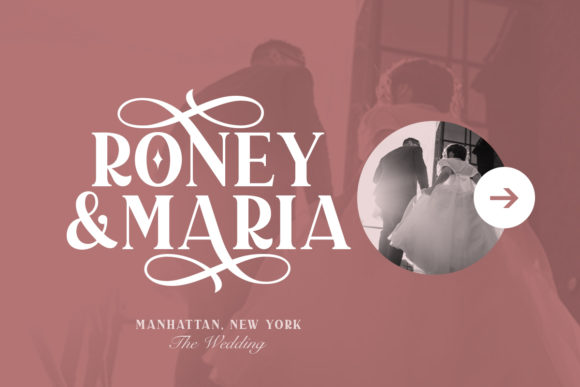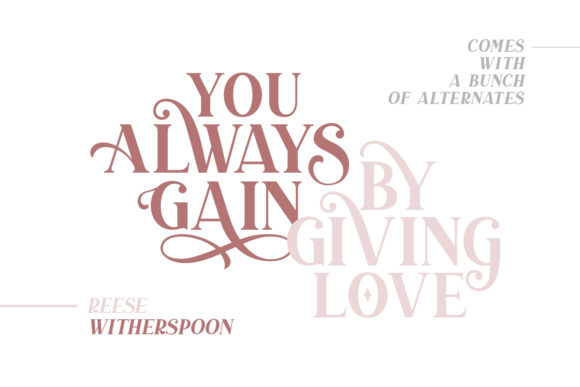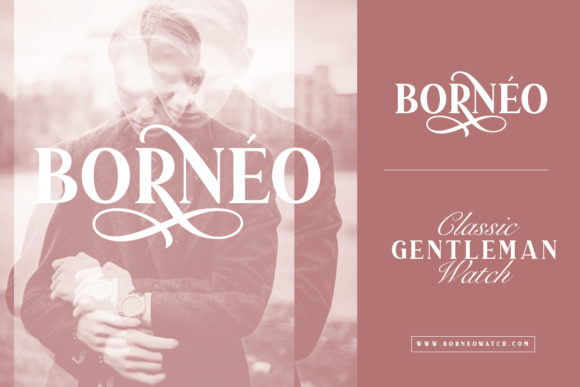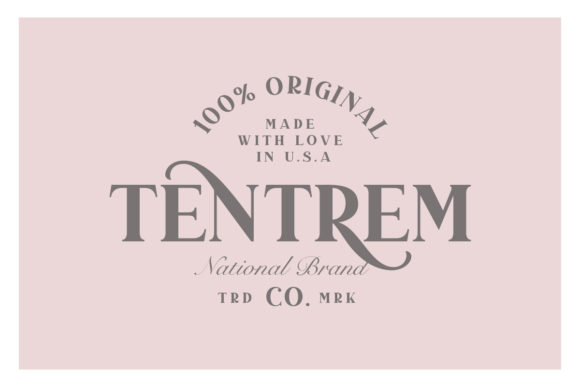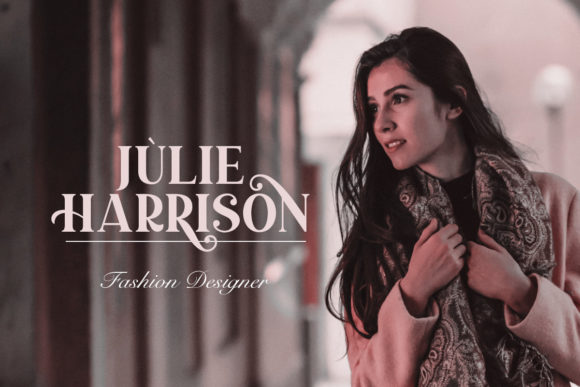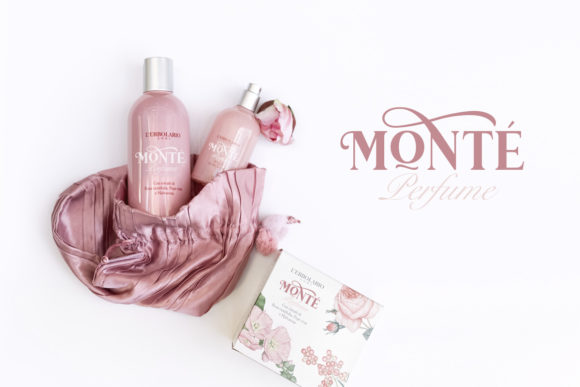
Introducing Duarose Font: Elevate Your Designs with Elegance and Versatility
Are you on the hunt for a font that exudes sophistication, elegance, and versatility? Look no further than Duarose Font! This stunning serif font is making waves in the design community, and for good reason. With its unique blend of classic charm and modern flair, Duarose is the perfect addition to any designer’s toolkit.
The Beauty of Duarose Font
Duarose Font is an elegant and distinct serif font that is sure to capture your heart. Its incredibly versatile style makes it an ideal choice for a wide range of design projects, from wedding invitations and stationary art to social media posts and more. Whether you’re a seasoned designer or a crafty DIY enthusiast, Duarose Font is sure to inspire your creativity and take your designs to the next level.
What Makes Duarose Font So Special?
So, what sets Duarose Font apart from other fonts on the market? Here are just a few of its standout features:
- Elegant Serif Design: Duarose Font boasts a beautiful serif design that adds a touch of sophistication to any project.
- Versatile Style: With its versatile style, Duarose Font can be used for a wide range of design projects, from formal wedding invitations to playful social media posts.
- Unique Character: Duarose Font has a unique character that sets it apart from other serif fonts on the market.
- Easy to Read: Despite its elegant design, Duarose Font is easy to read, making it perfect for body text and other applications where legibility is key.
Ways to Use Duarose Font
With its versatility and elegance, Duarose Font can be used in a wide range of design projects. Here are just a few ideas to get you started:
- Wedding Invitations: Create beautiful and elegant wedding invitations that set the tone for the big day.
- Stationary Art: Add a touch of sophistication to your stationary art with Duarose Font.
- Social Media Posts: Make your social media posts stand out with Duarose Font’s elegant and eye-catching design.
- Branding and Packaging: Use Duarose Font to create a cohesive brand identity that exudes elegance and sophistication.
- Signage and Displays: Create eye-catching signage and displays with Duarose Font that are sure to grab attention.
Tips for Using Duarose Font
To get the most out of Duarose Font, here are a few tips to keep in mind:
- Experiment with Font Sizes: Duarose Font looks great in a variety of font sizes, so don’t be afraid to experiment to find the perfect size for your project.
- Pair with Other Fonts: Duarose Font pairs well with a variety of other fonts, so try pairing it with a sans-serif font for a bold and eye-catching look.
- Use it for Headings and Titles: Duarose Font is perfect for headings and titles, where its elegant design can really shine.
In conclusion, Duarose Font is a stunning serif font that is sure to elevate your designs with its elegance and versatility. With its unique character, easy readability, and wide range of uses, Duarose Font is a must-have for any designer or crafty DIY enthusiast. So why wait? Fall in love with Duarose Font today and take your designs to the next level!